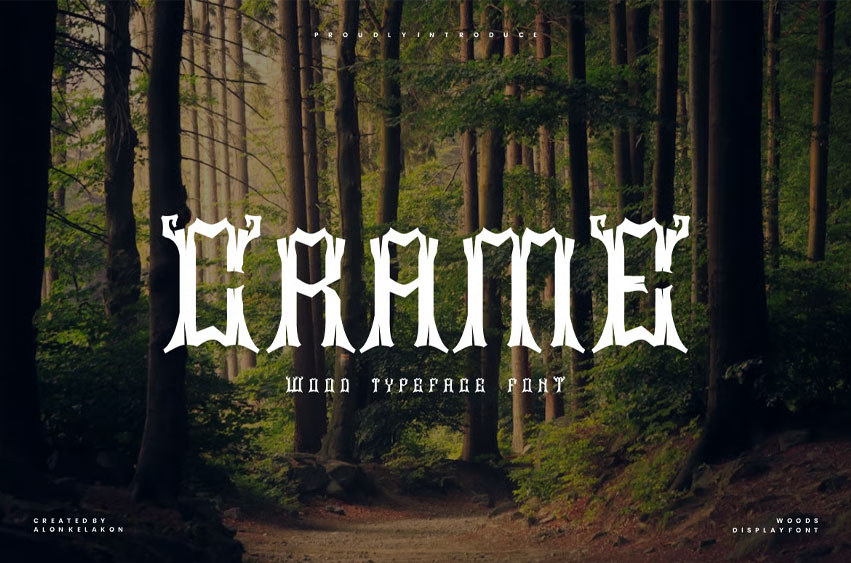
Crame Font
Crame Font Embark on a journey to the heart of the forest with Crame, a unique display font inspired by the raw beauty of nature and the mystique of ancient woodlands. Crame’s distinctive letterforms evoke the gnarled roots and sharp branches of trees, making it the perfect choice for projects that demand a touch of the organic and the enchanting.
This all-caps font is meticulously crafted with a rustic, hand-carved feel, ideal for creating strong and memorable headlines. Whether you’re designing logos for a nature-themed brand, posters for a fantasy movie, packaging for artisanal products, or branding for an outdoor adventure company, Crame will lend your work an authentic, earthy, and powerful character.
Crame comes with a full set of uppercase and lowercase letters (with a unique and stylized design for both), numerals, and punctuation, giving you the versatility to create captivating designs.
• Full set of uppercase and lowercase letters
• Numerals and extensive punctuation
• Key Features:
• Distinctive, nature-inspired design
• Strong and bold display typeface
• Perfect for logos, branding, posters, and more
Bring the spirit of the woods to your next project with Crame.